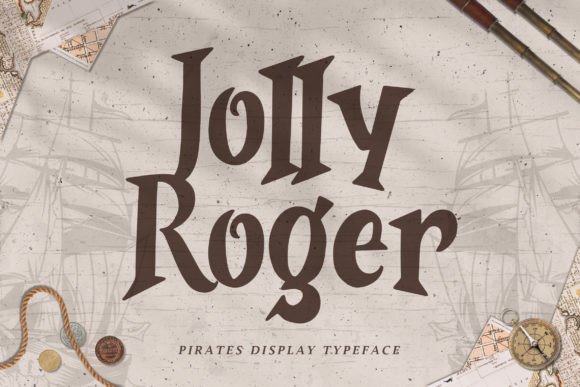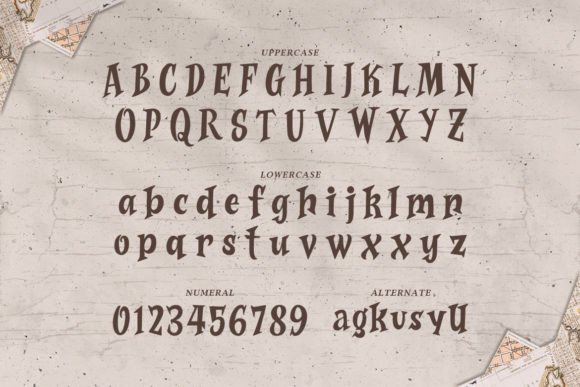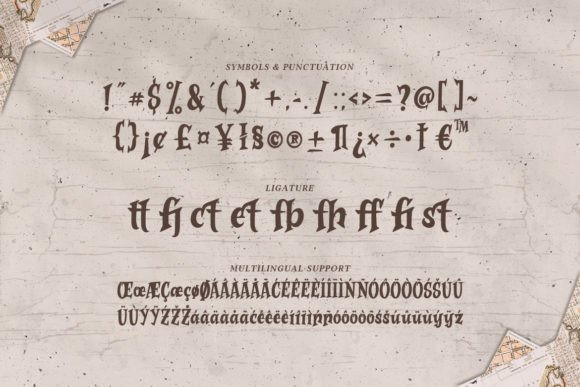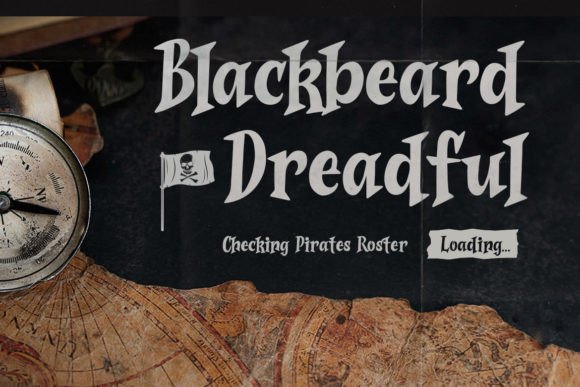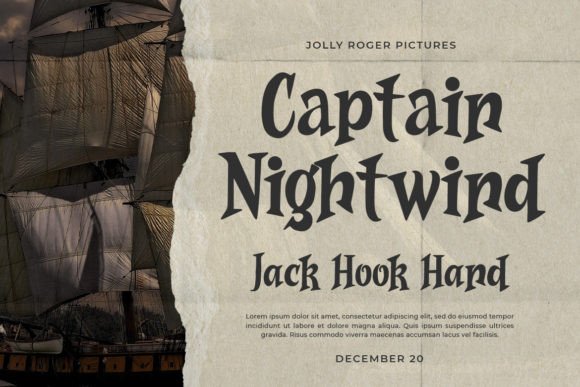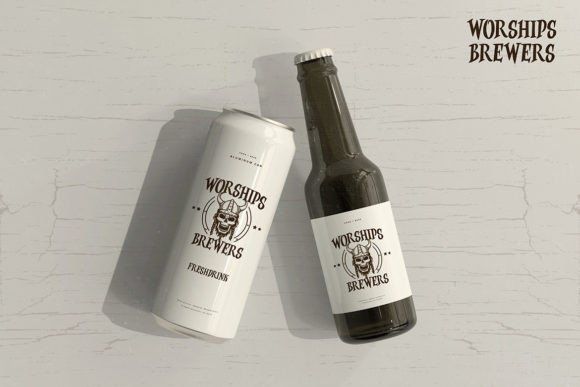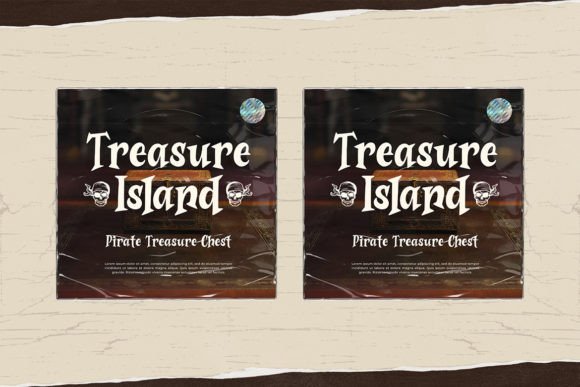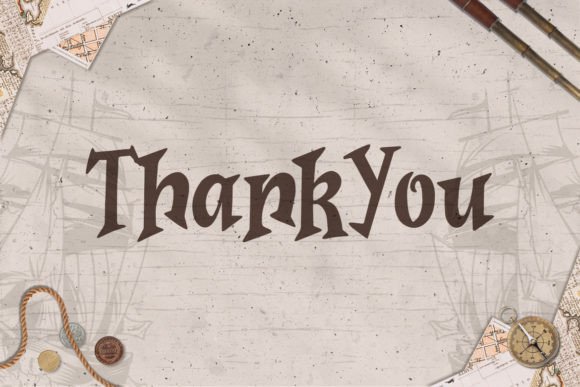
Jolly Roger Font
Jolly Roger is a pirate fantasy font that will immediately take you into an adventurous world.
This font will be the ideal choice for any movie, game, or pirate-themed design you wish to create.